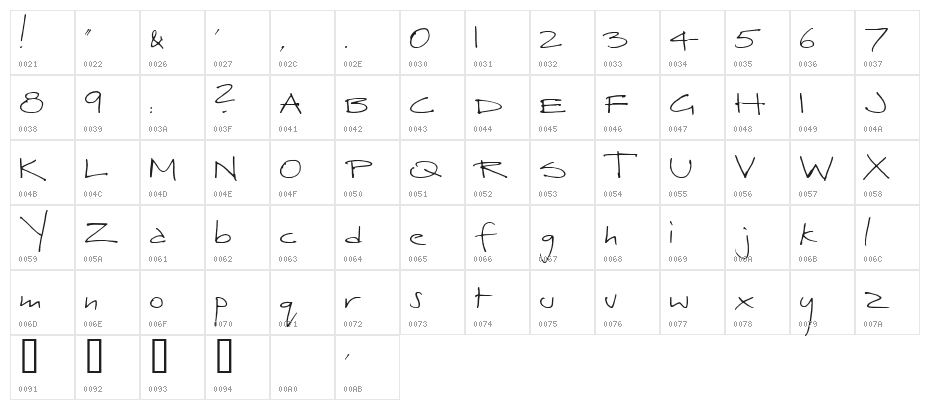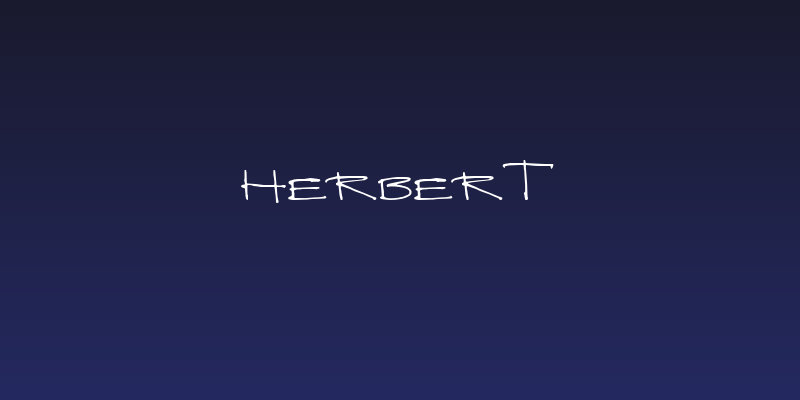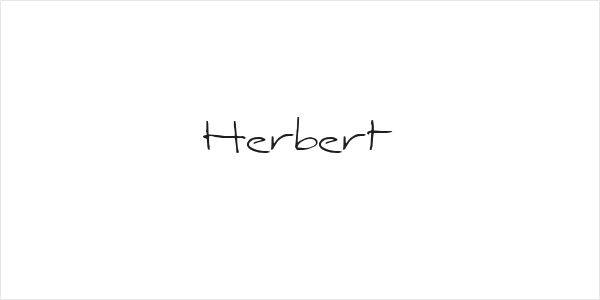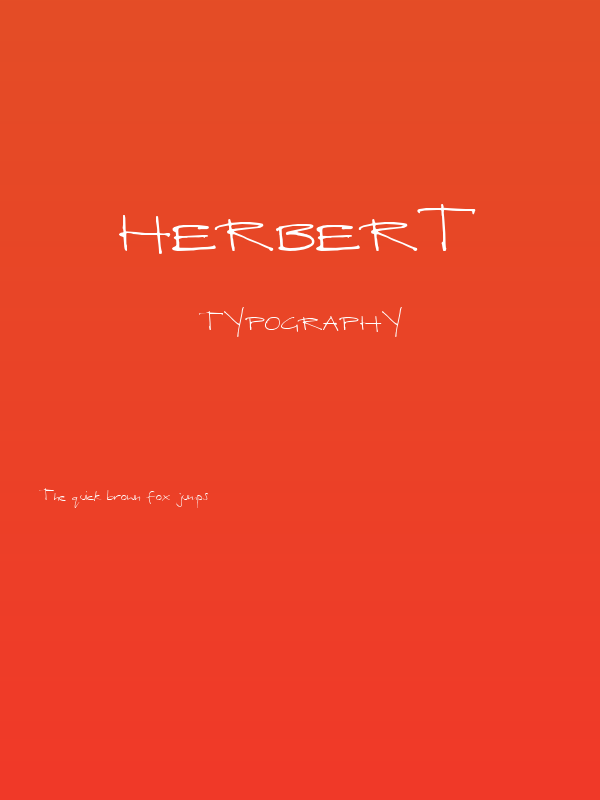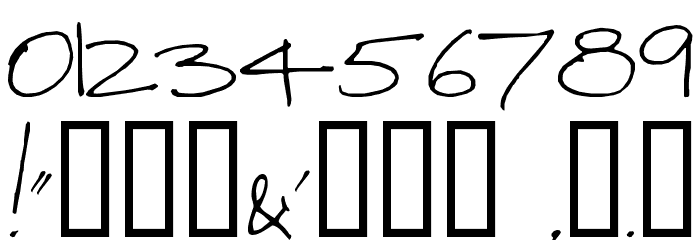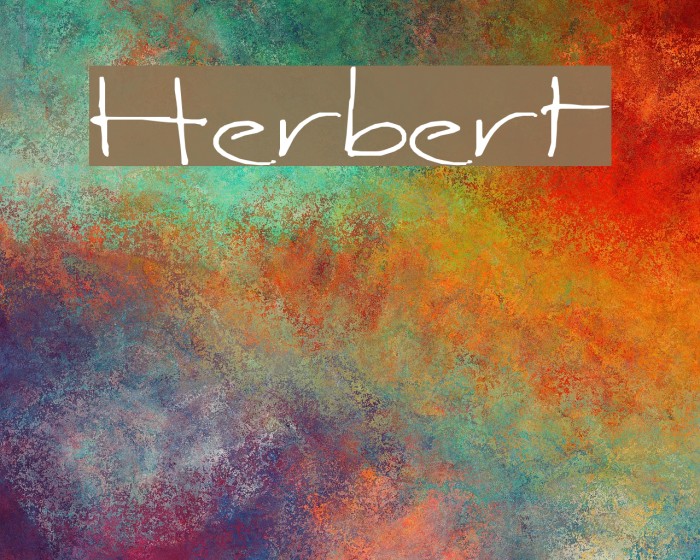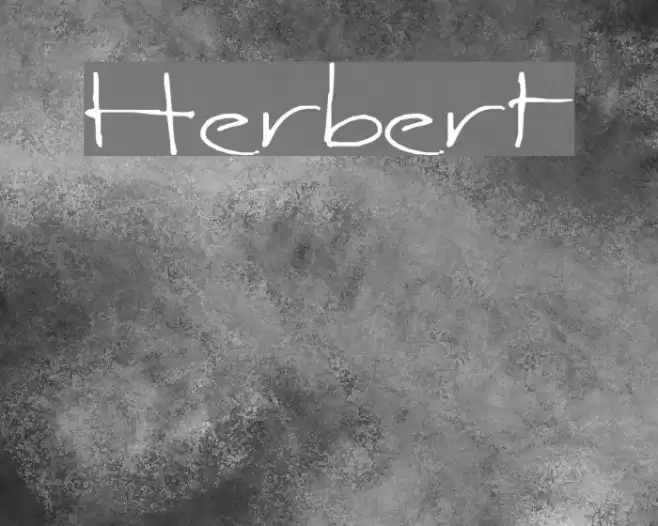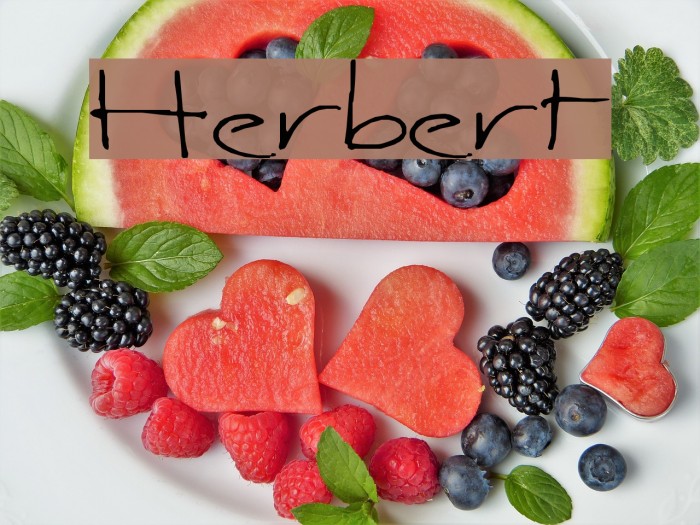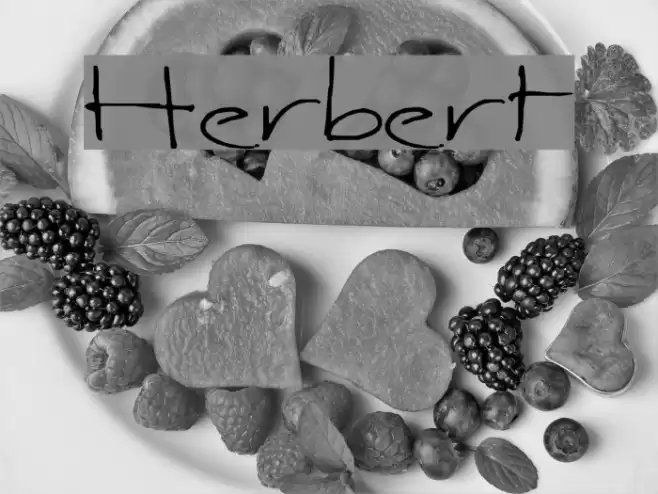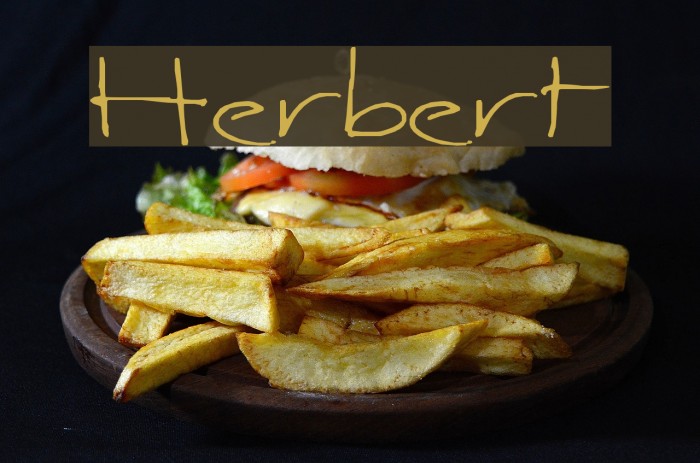
Herbert Font
| Style général | Casual |
| Cas d'utilisation | Headlines, Informal text, Creative projects |
| Projets proposés | Ideal for personal notes, informal invitations, greeting cards, and creative projects that require a personal touch. |